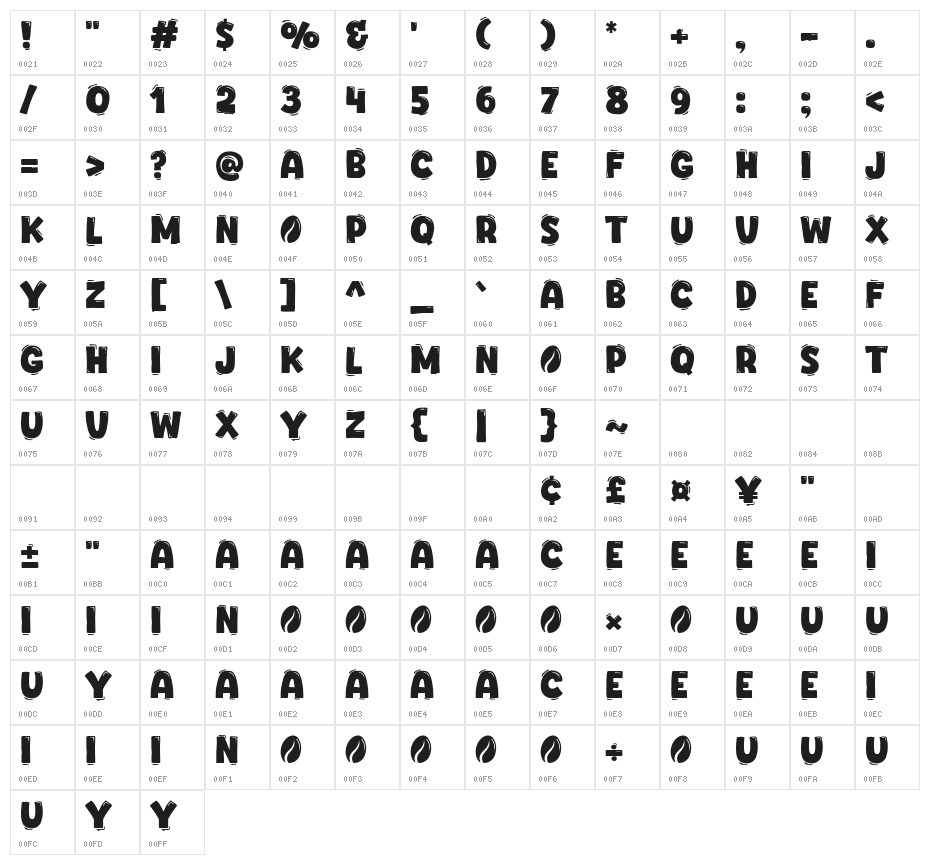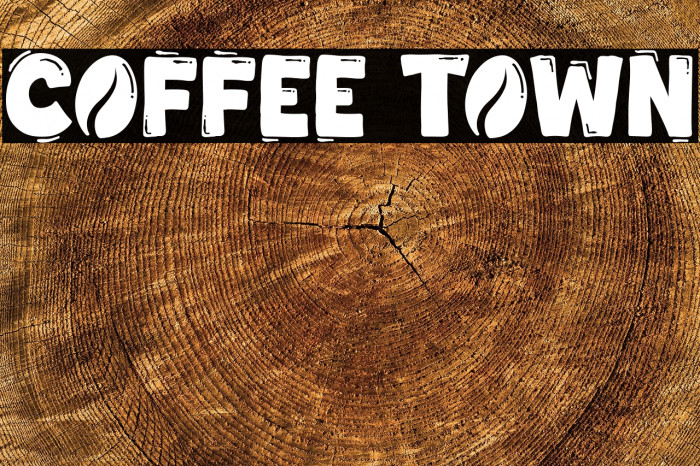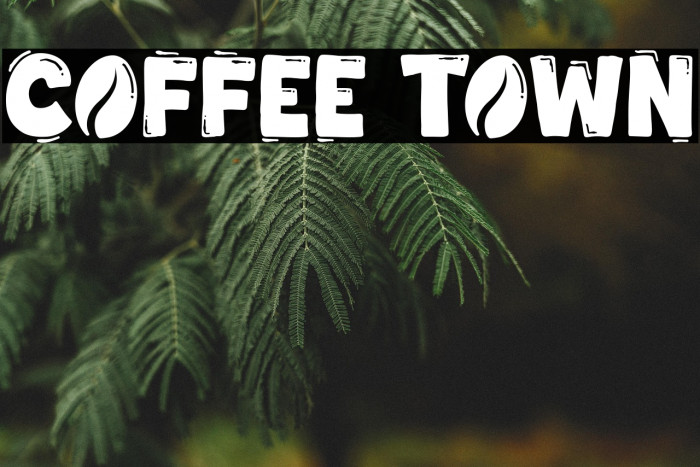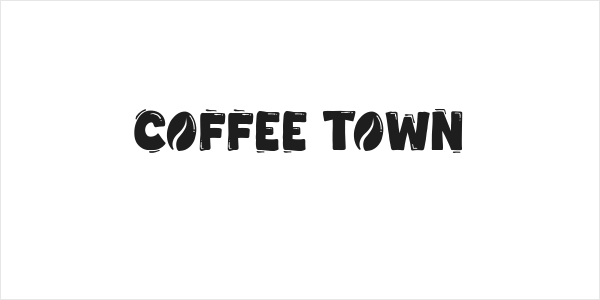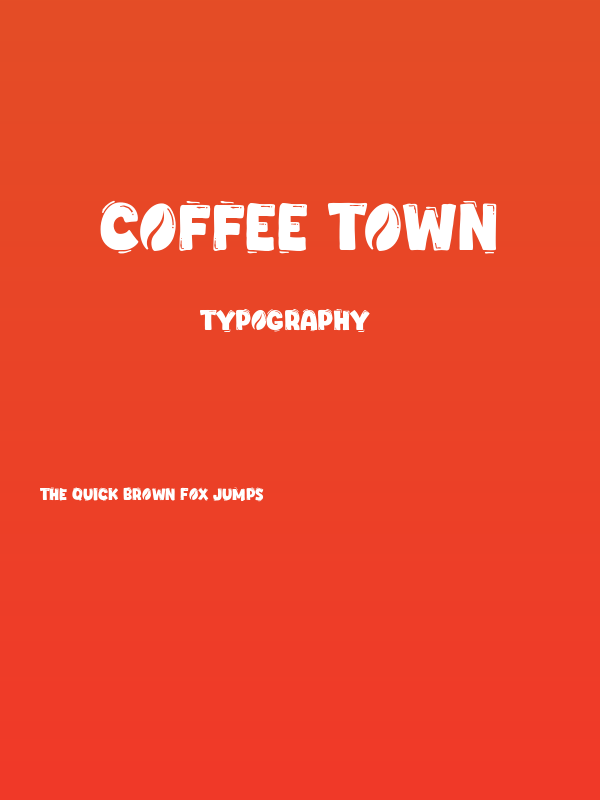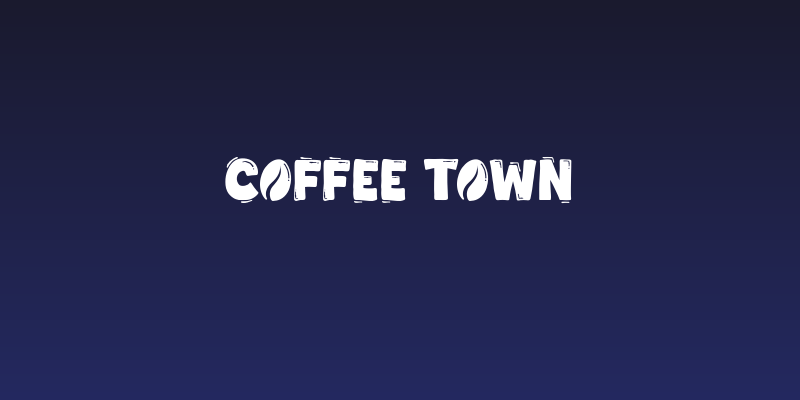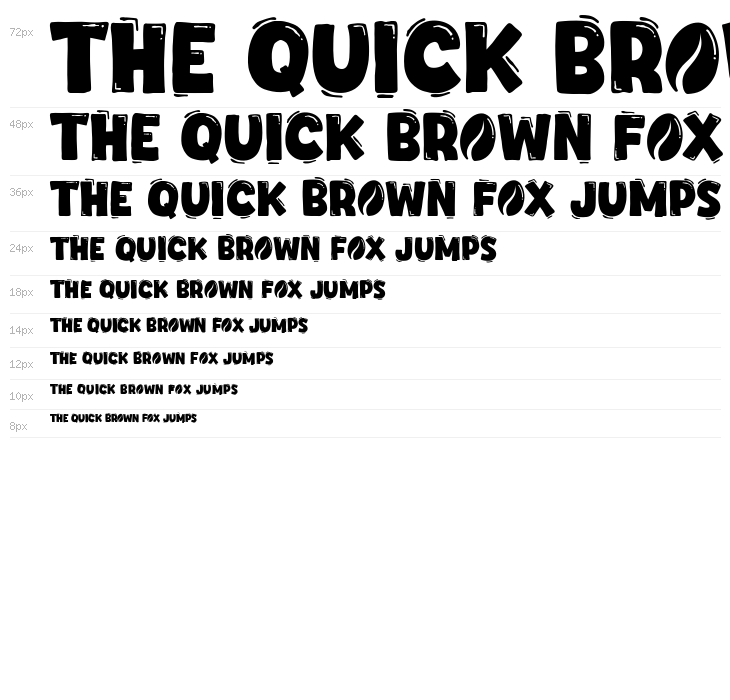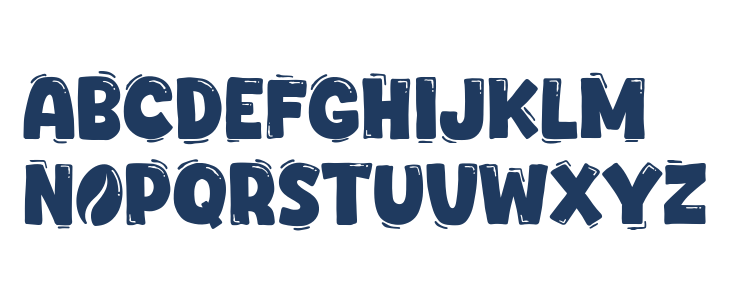
Coffee Town Font
Coffee Town Description
This font features a bold and playful style with a hand-drawn aesthetic. Each character is crafted with a slightly irregular outline, giving it a casual and artistic feel. The letters are thick and rounded, with a consistent weight throughout. The uppercase and lowercase letters maintain a uniform height, while the numbers and special characters are designed to match the overall style. The font's unique charm is enhanced by subtle imperfections, adding to its handcrafted appearance. This makes it ideal for projects that require a friendly and approachable look.
| Overall Style | Playful, Artistic, Handcrafted |
| Proposed Projects | Ideal for children's books, playful branding, cafe menus, and creative posters. |